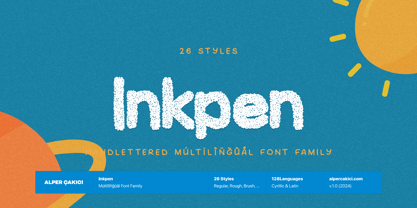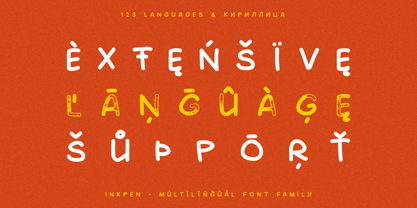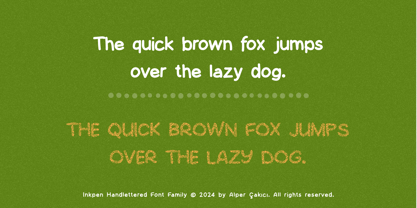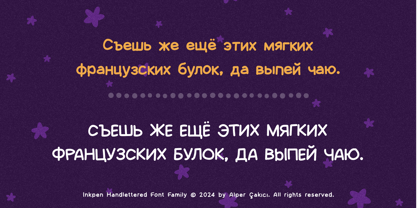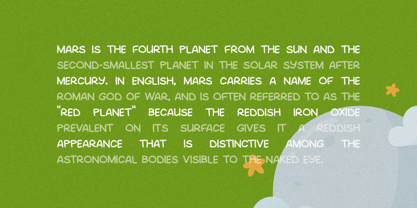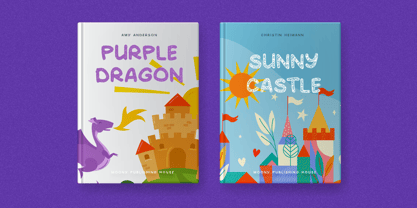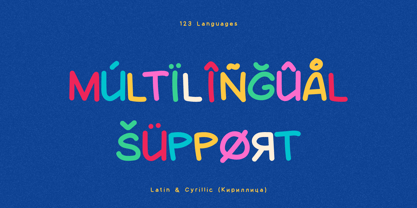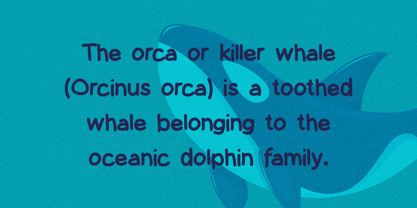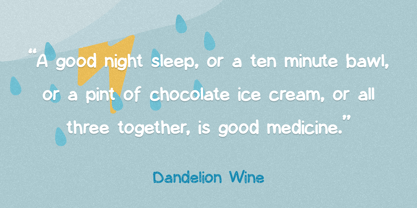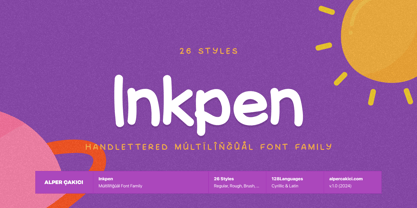
Inkpen
by AlperCakici
The Inkpen Font Family was designed by Alper Çakıcı and published by AlperCakici. Inkpen contains 26 styles and family package options. More about this family
Inkpen is a charming, handwritten font family designed to bring personality, warmth, and playful character to every creative project. Built with smooth curves, lively strokes, and a friendly hand-drawn feel, Inkpen is perfect for designers who want a touch of sweetness without sacrificing clarity or versatility. Now expanded to a full collection of 26 expressive styles, Inkpen includes: Regular, Italic, Chalk, Chalk Italic, Dots, Dots Italic, Dust, Dust Italic, Grain, Grain Italic, Micron, Micron Italic, Mottle, Mottle Italic, OldPress, OldPress Italic, PenSketch, PenSketch Italic, Soft, Soft Italic, Spotty, Spotty Italic, Stipple, Stipple Italic, Rough, Rough Italic, and more—each crafted to complement cute, joyful, textured, and whimsical design atmospheres. From clean and cozy to highly expressive and textured, every style adds its own handcrafted flavor, giving designers endless flexibility for branding, packaging, editorial titles, children’s design, and bright social content. With 126-language support, Inkpen is ready for global and multicultural projects. Its approachable personality and authentic handwritten charm make it a perfect match for playful, uplifting, and imaginative visual identities.
Designers: Alper Çakıcı
Foundry: AlperCakici